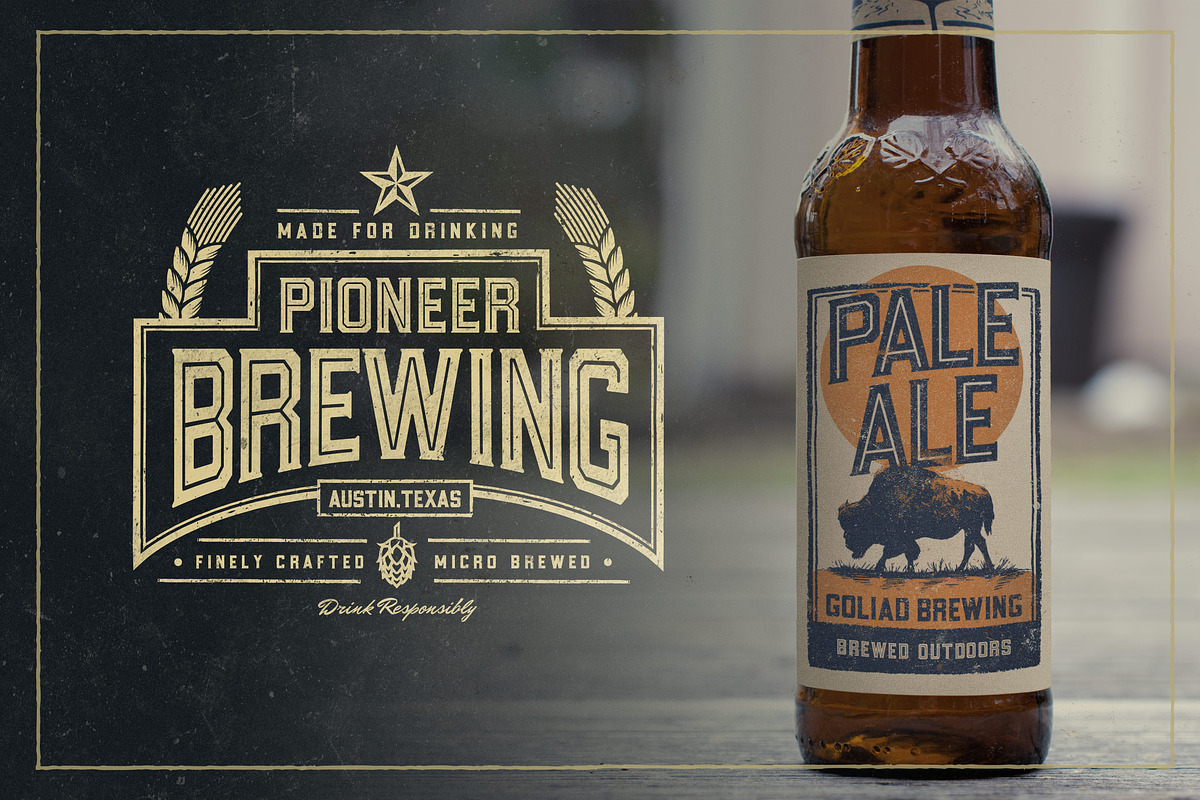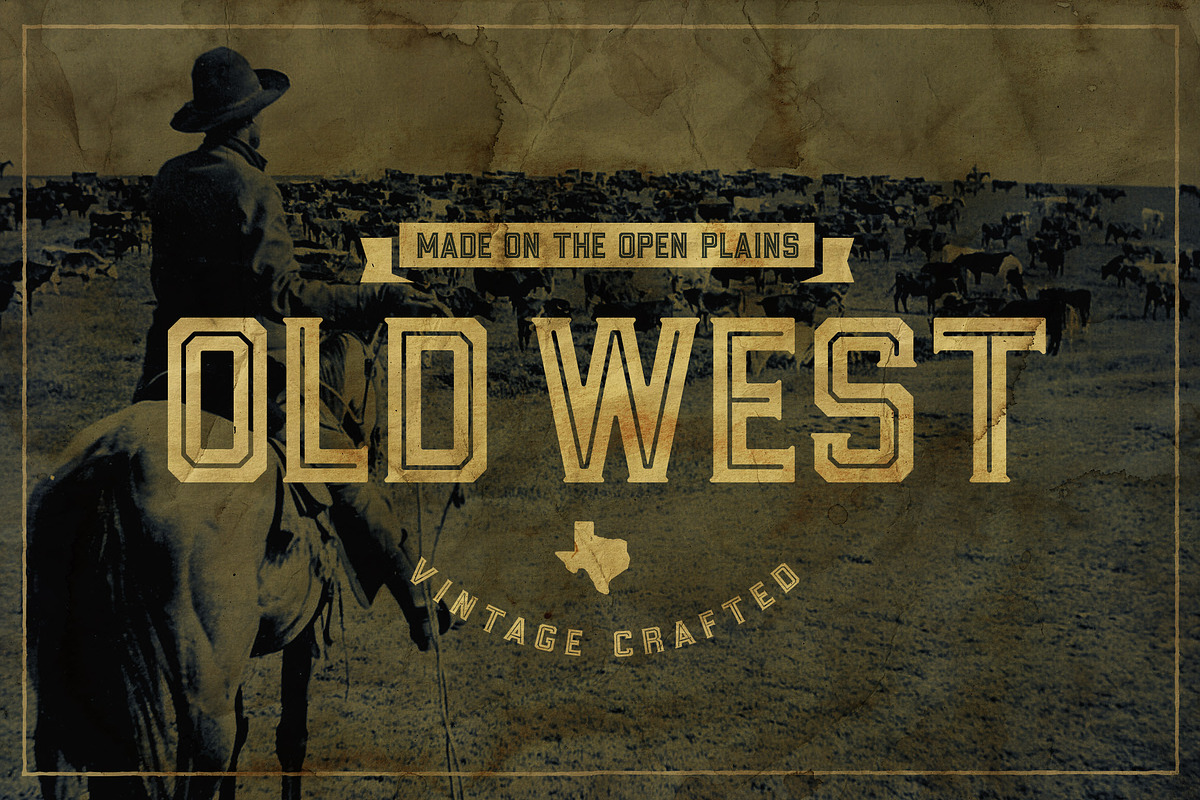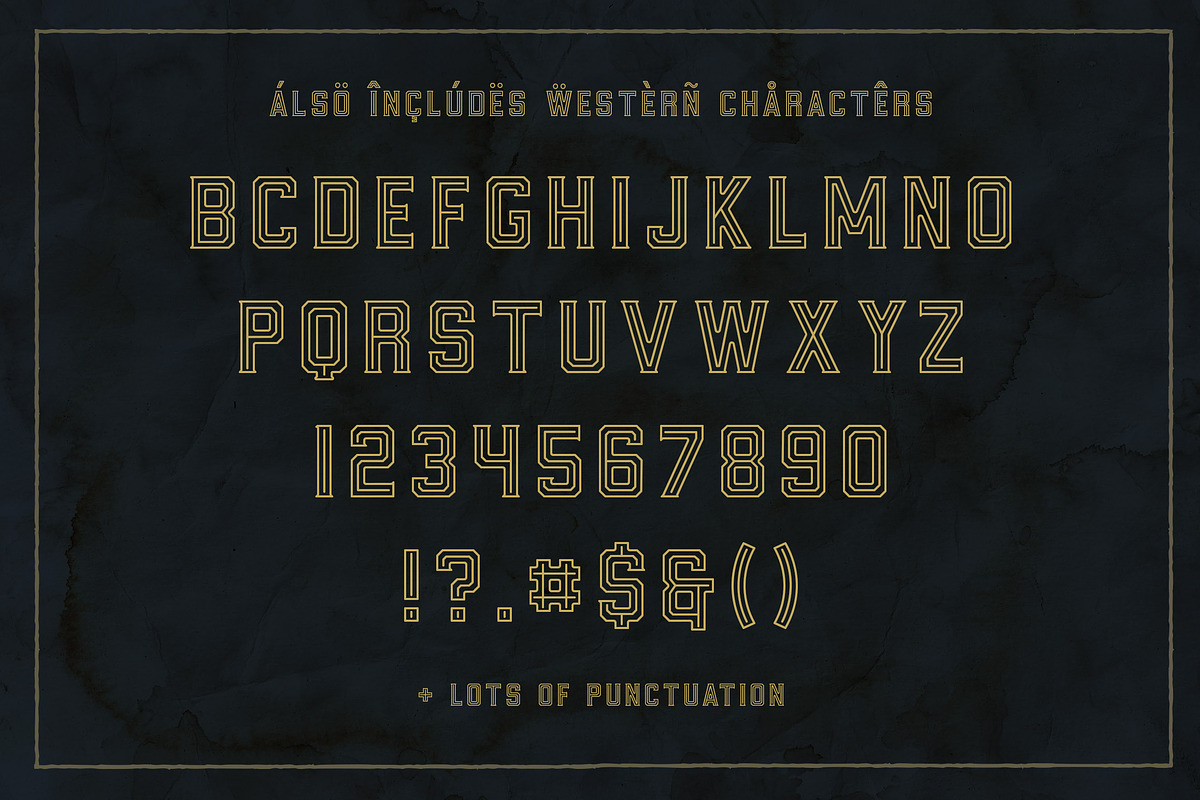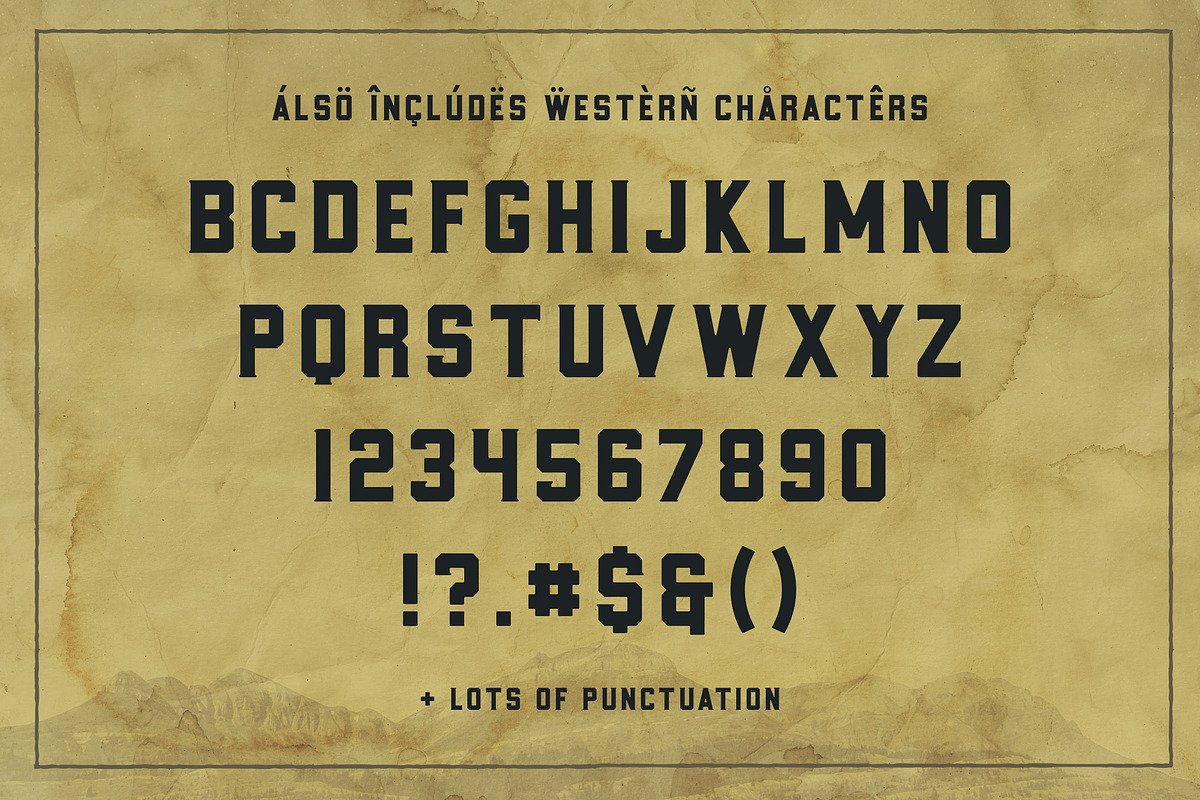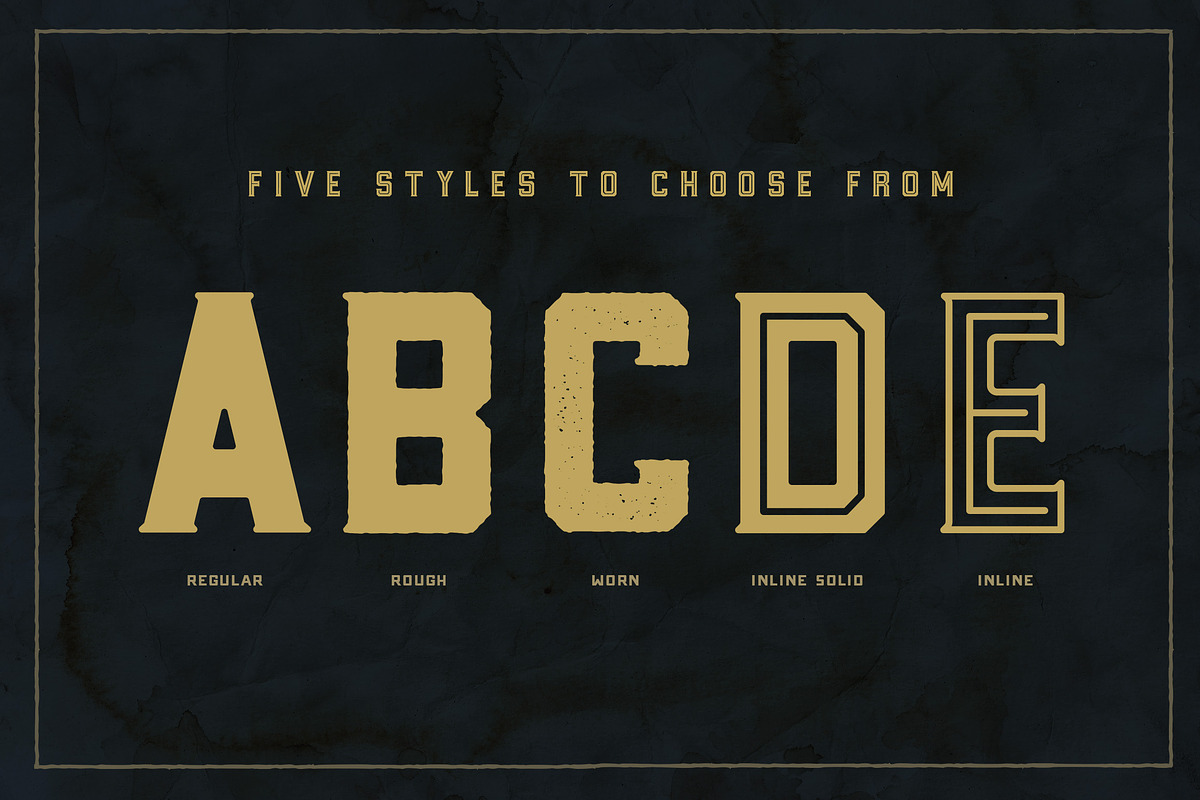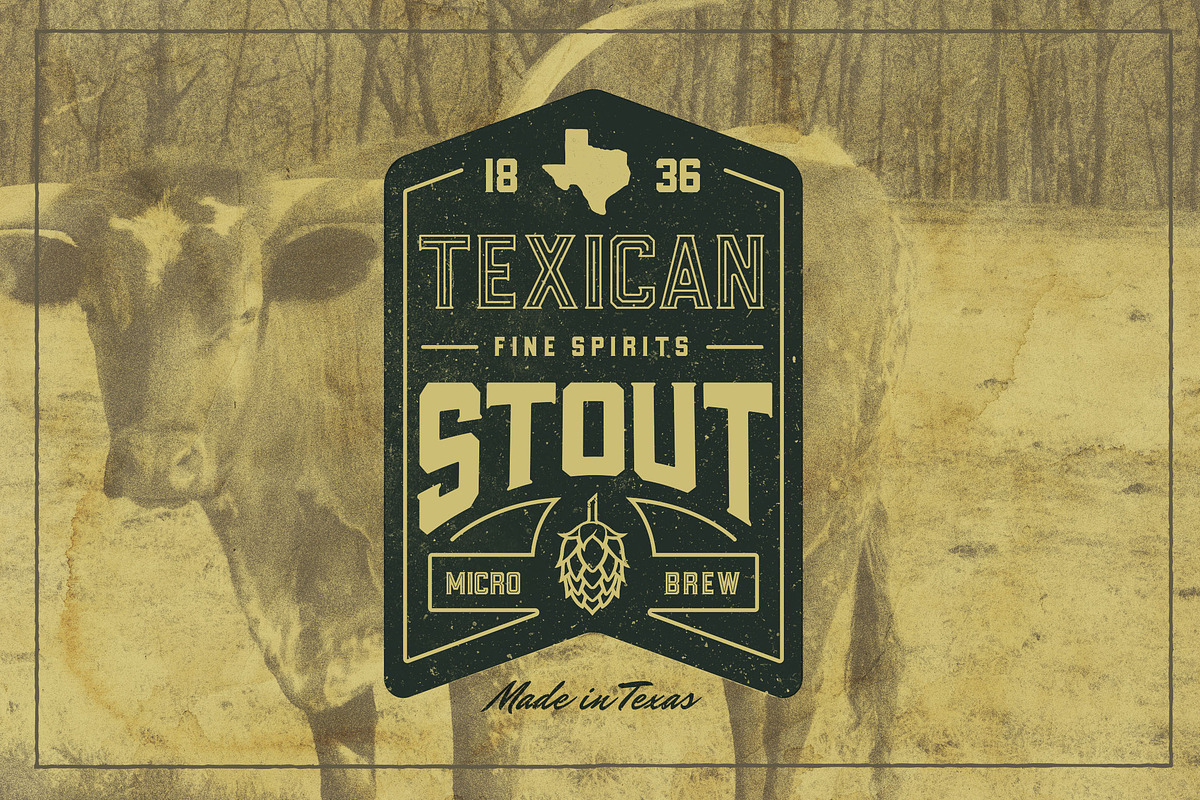
Goliad Font - 5 Styles
Goliad Font - 5 Styles by Nathan Brown is a font selected for branding, posters, packaging, typography.
Why Goliad Font - 5 Styles is worth a look
Goliad Font - 5 Styles by Nathan Brown fits naturally into Branding, posters, packaging, typography.